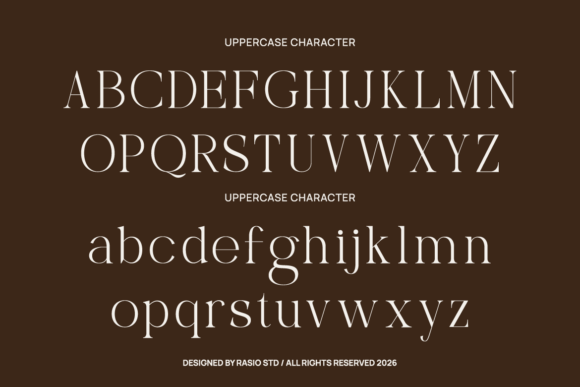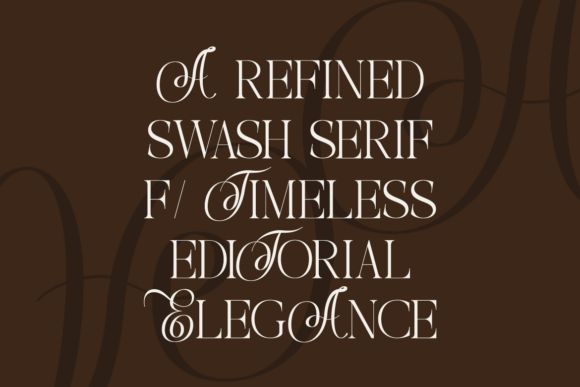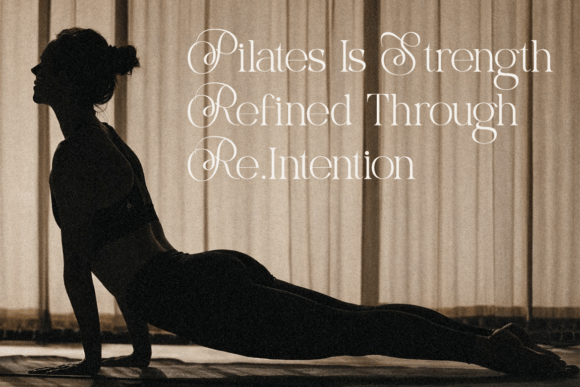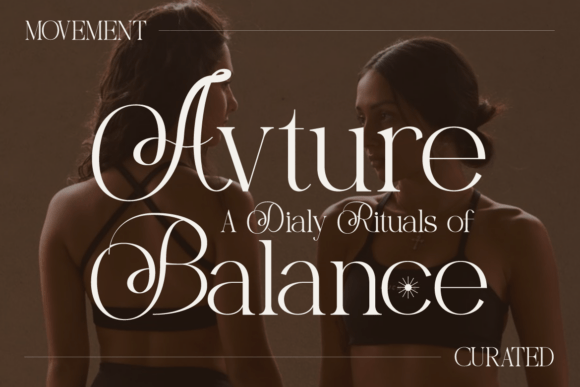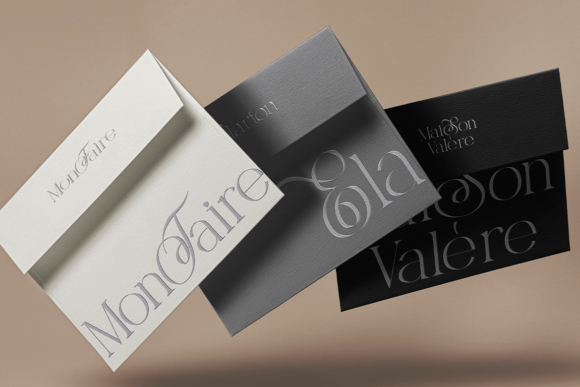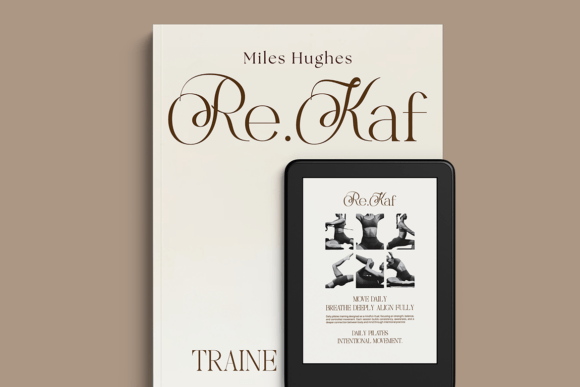
Introduction to Selora Font
As a designer, you know that sometimes the perfect font can make all the difference between a mediocre project and a masterpiece. I still remember the thrill of finding the perfect font for a client’s luxury brand campaign – it was the Selora Font, with its elegant swash serifs and poetic calligraphic swashes. From that moment on, I knew I had found a game-changer in my design arsenal.
With its unique blend of classic sophistication and modern flair, the Selora Font is an exceptional choice for designers looking to elevate their creative projects. Whether you’re working on a high-fashion magazine, a luxury lifestyle logo, or premium wedding stationery, this high-contrast font is sure to add a touch of timeless elegance. And the best part? It’s available as a free download, making it an invaluable design resource for any creative project.
Key Features of Selora Font
- High-quality design resource ideal for creative projects requiring unique typography.
- Features a transparent background, making it easy to use with different backgrounds and designs.
- Designed with a modern aesthetic, perfect for modern and minimalist design projects.
- Includes a wide range of glyphs and characters, making it suitable for various languages and design needs.
- Can be easily customized and edited to fit specific design requirements, making it a valuable design resource.
Honest Review: Selora Font
As a designer, I’m always on the lookout for high-quality design resources to elevate my creative projects. I recently stumbled upon the Selora Font, and I’m excited to share my honest review with you.
- ✨ Elegant and modern design aesthetic that’s perfect for a variety of creative projects
- ✨ Offers a transparent background, making it easy to use on any design surface
One of the things that stands out about the Selora Font is its versatility. It’s perfect for a wide range of design projects, from logos to typography-based designs. The font is also incredibly easy to use, with a transparent background that makes it simple to integrate into any design.
- ⚠️ Limited character set, which may not be suitable for extended text-based projects
- ⚠️ Not ideal for use in small font sizes, as it may become difficult to read
Overall, I’m impressed with the Selora Font. While it has some limitations, it’s a great design resource for designers who want a high-quality, modern font for their creative projects.
Tips for Getting the Most Out of Selora Font
To get the most out of the Selora Font, use it with a transparent background to create a clean and modern look. You can also experiment with different font sizes and styles to add visual interest to your design.
Common Use Cases for Selora Font
The Selora Font is perfect for creative projects such as logos, business cards, and social media graphics. It’s also great for use in presentations and documents where a unique and professional look is desired.
Alternatives to Selora Font
Alegreya is a high-quality, elegant font ideal for creative projects requiring a sophisticated touch. It’s available for free download, making it a valuable design resource. When to use: Magazine covers, book titles, and other high-end design applications. Comparison to Selora Font: Alegreya offers a more refined and classic look, whereas Selora Font is more modern and versatile.
Playfair Display is an elegant script font perfect for adding a touch of luxury to your design. It’s suitable for creative projects that require a high level of sophistication, such as wedding invitations and magazine headlines. When to use: High-end design projects, luxury branding, and creative applications. Comparison to Selora Font: Playfair Display is more ornate and elegant, whereas Selora Font is more minimalist and modern.
Q: Does the Selora Font have a transparent background?
Yes, the Selora Font has a transparent background, making it suitable for use on various backgrounds and designs. This feature allows designers to create visually appealing and unique designs for their creative projects.